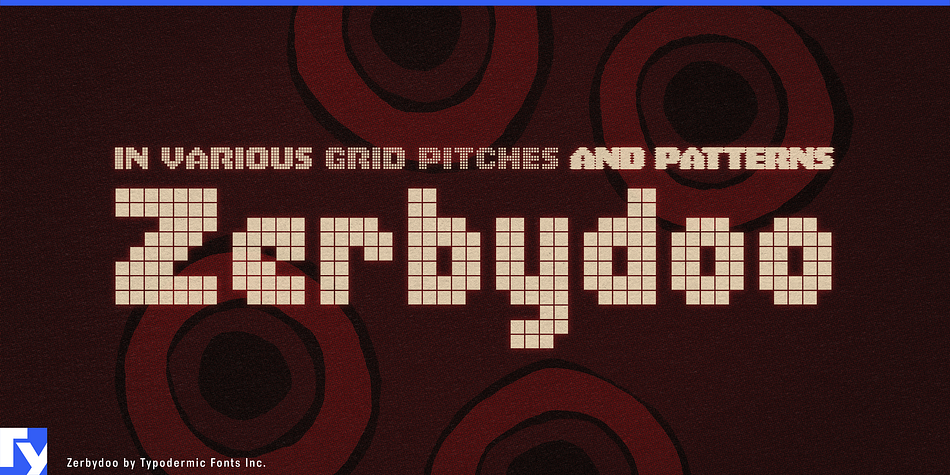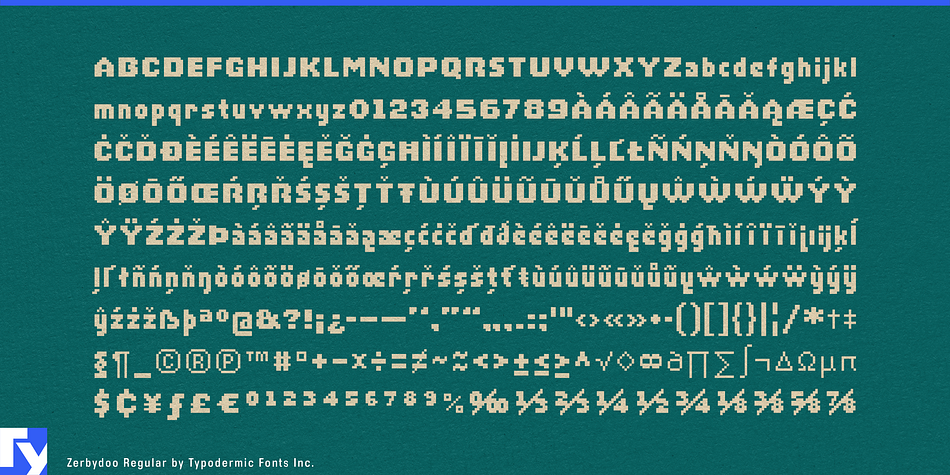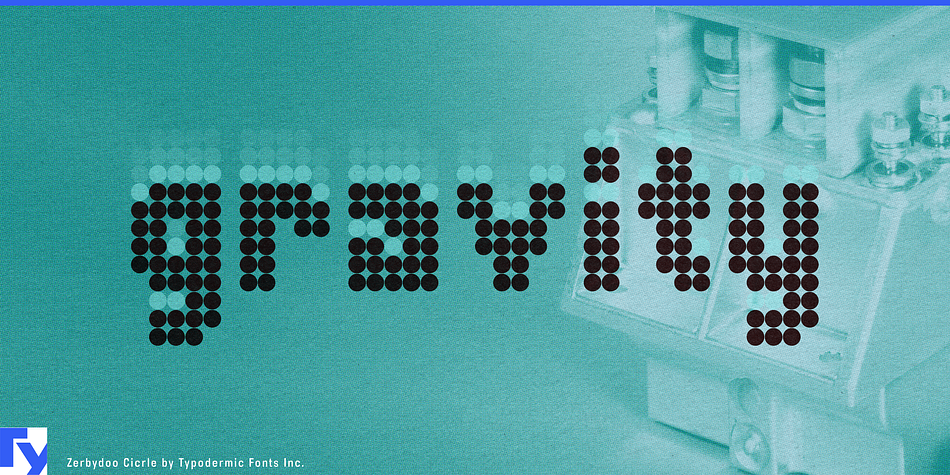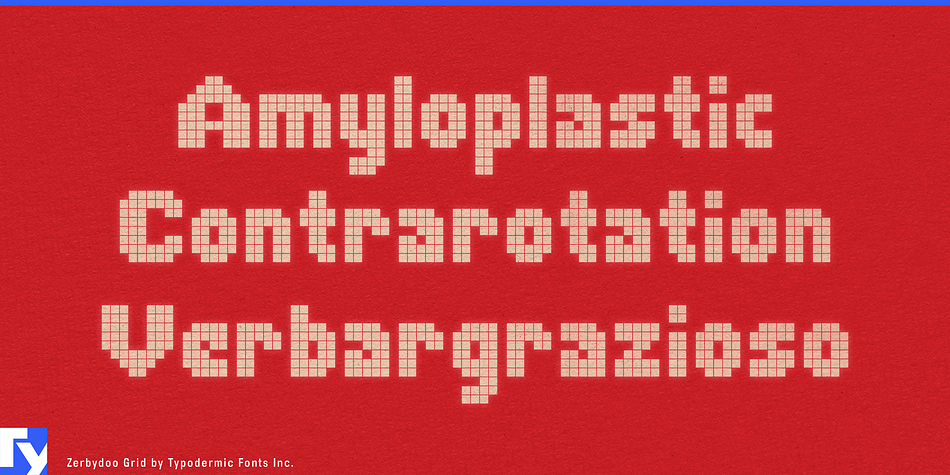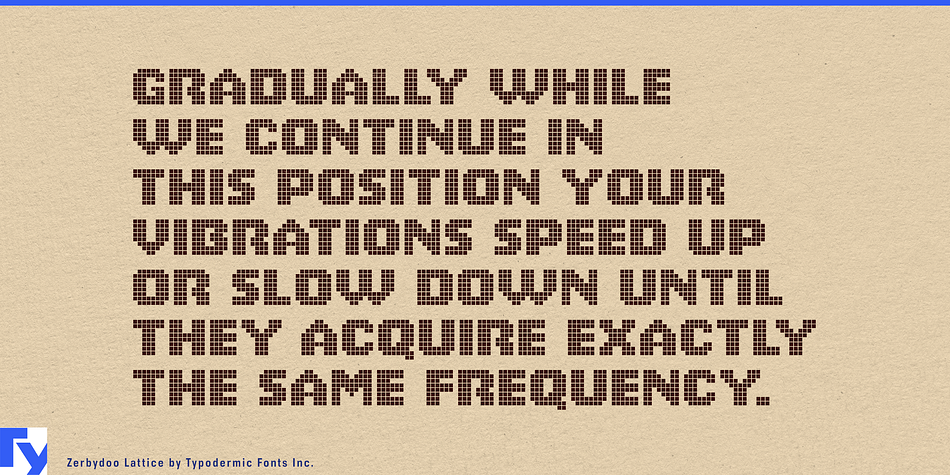
Zerbydoo is a display font family. This typeface has eight styles and was published by Typodermic Fonts Inc.
Zerbydoo is a pixel-effect-based simulated bitmap typeface. Your message will have a lively voice thanks to its thick, videogame-style design. To provide an authentic pixel-font look, kerning is limited to full pixel increments. Most Latin-based European writing systems are supported, including the following languages. Afaan Oromo, Afar, Afrikaans, Albanian, Alsatian, Aromanian, Aymara, Bashkir (Latin), Basque, Belarusian (Latin), Bemba, Bikol, Bosnian, Breton, Cape Verdean, Creole, Catalan, Cebuano, Chamorro, Chavacano, Chichewa, Crimean Tatar (Latin), Croatian, Czech, Danish, Dawan, Dholuo, Dutch, English, Estonian, Faroese, Fijian, Filipino, Finnish, French, Frisian, Friulian, Gagauz (Latin), Galician, Ganda, Genoese, German, Greenlandic, Guadeloupean Creole, Haitian Creole, Hawaiian, Hiligaynon, Hungarian, Icelandic, Ilocano, Indonesian, Irish, Italian, Jamaican, Kaqchikel, Karakalpak (Latin), Kashubian, Kikongo, Kinyarwanda, Kirundi, Kurdish (Latin), Latvian, Lithuanian, Lombard, Low Saxon, Luxembourgish, Maasai, Makhuwa, Malay, Maltese, Māori, Moldovan, Montenegrin, Ndebele, Neapolitan, Norwegian, Novial, Occitan, Ossetian (Latin), Papiamento, Piedmontese, Polish, Portuguese, Quechua, Rarotongan, Romanian, Romansh, Sami, Sango, Saramaccan, Sardinian, Scottish Gaelic, Serbian (Latin), Shona, Sicilian, Silesian, Slovak, Slovenian, Somali, Sorbian, Sotho, Spanish, Swahili, Swazi, Swedish, Tagalog, Tahitian, Tetum, Tongan, Tshiluba, Tsonga, Tswana, Tumbuka, Turkish, Turkmen (Latin), Tuvaluan, Uzbek (Latin), Venetian, Vepsian, Võro, Walloon, Waray-Waray, Wayuu, Welsh, Wolof, Xhosa, Yapese, Zapotec Zulu and Zuni.